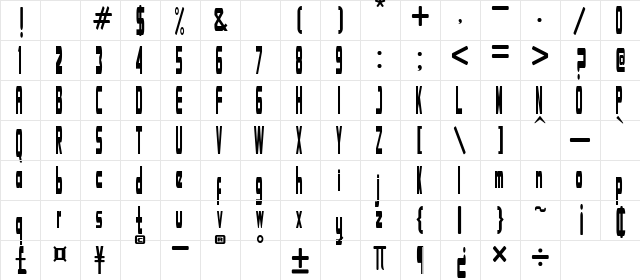
Ambigo Regular
| Designer | Aris Dpu |
Design Context for Ambigo Typeface
Ambigo offers clean, dependable letterforms without strong stylistic allegiance, making it a practical choice for designers who need flexibility.